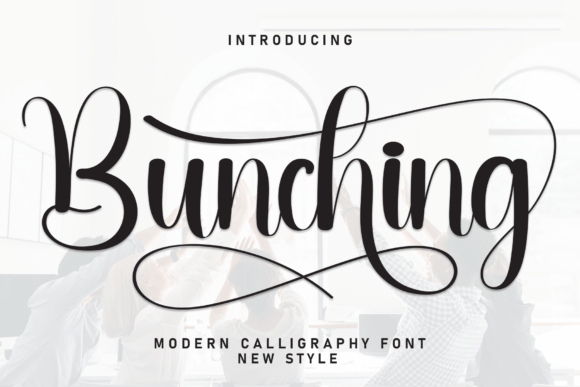
The Perfect Script for Your Next Design Project
Have you ever been brainstorming ideas for a special project, and suddenly a beautiful handwritten font pops into your head? For designers, this is a common phenomenon – the spark of creativity that sets the tone for an entire design. For me, it was the Bunching Font that stole the show. Its playful, casual vibe is perfect for anything from wedding invitations to birthday cards.
Bunching Font is a sweet and friendly handwritten font that brings a fresh, personal touch to any design. Whether you’re a seasoned pro or just starting out, this font is a valuable addition to your toolkit. Its versatility makes it ideal for a wide range of projects, and its friendly feel is sure to delight clients and customers alike.
Bunching Font Key Features
- Unique Characteristic: Bunching Font features a distinctive, bunched-up letterform style, creating a playful and whimsical aesthetic.
- Scalability: Bunching Font is designed to scale well, maintaining its unique character and readability across various font sizes and resolutions.
Bunching Font Review
Overall, I think Bunching Font has some great qualities that make it a decent choice for certain projects, but it’s not perfect. Here are some things that work well:
- ✨ Elegant and playful feel: Bunching Font has a unique, whimsical quality that can add a lot of personality to your designs.
- ✨ Versatile: While it’s often used for decorative purposes, Bunching Font can also be used effectively for body text in smaller sizes.
- ✨ High contrast: The font’s bold lines and curves create high contrast, making it easy to read, even at smaller sizes.
- ⚠️ Limited legibility at larger sizes: While Bunching Font works well at smaller sizes, it can become overwhelming and difficult to read when used at larger sizes.
- ⚠️ Limited character set: The font’s quirky nature means it may not be suitable for projects that require a wide range of characters or languages.
Overall, I think Bunching Font is a great choice for projects that require a playful, decorative font, but it’s not a good fit for more serious or formal designs. With careful consideration of its limitations, Bunching Font can be a valuable addition to your design toolkit.
Bunching font is commonly used in: headlines and titles to create a bold and eye-catching effect, in social media posts to add a creative touch, and in branding materials to create a unique and memorable visual identity.
Tips for Getting the Most Out of Bunching Font
To get the most out of bunching font, use it sparingly and in combination with other design elements to avoid overwhelming the viewer. Also, experiment with different font sizes, colors, and spacing to achieve the desired effect.